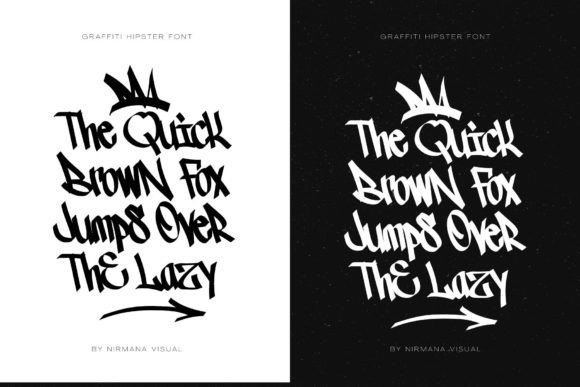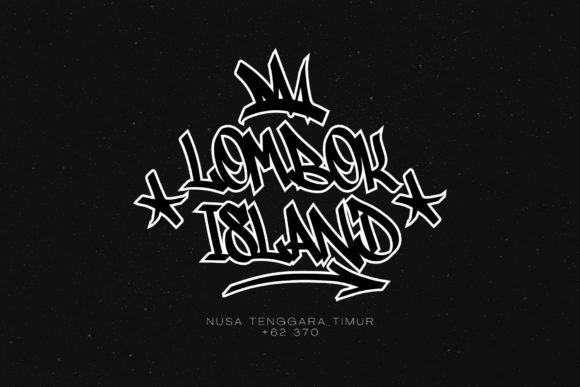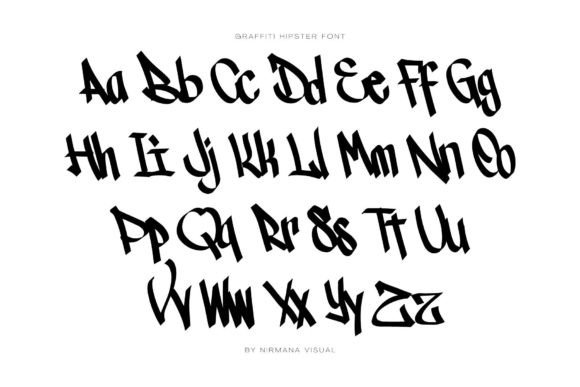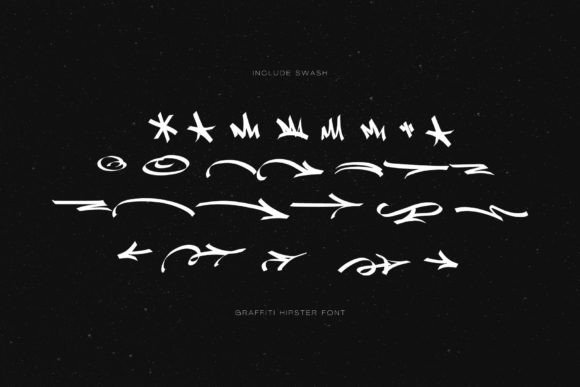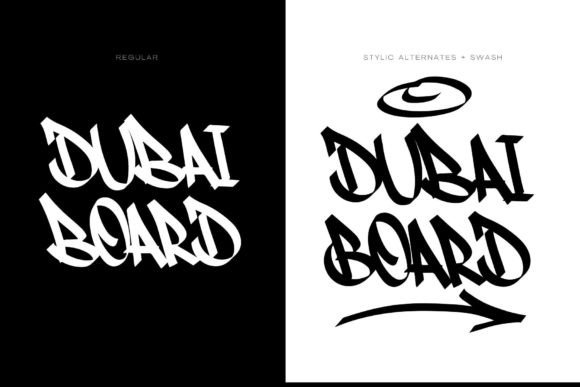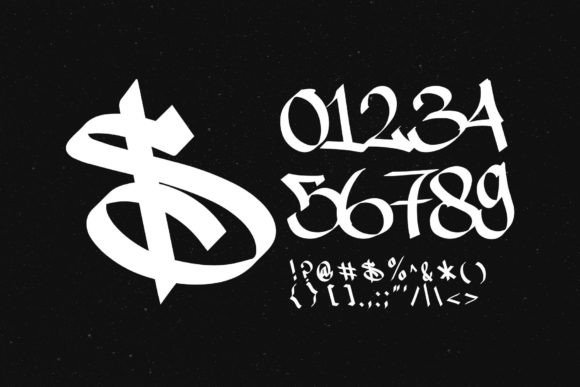
Introduction to Graffiti Hipster Font
Graffiti Hipster is the ultimate graffiti display font for urban design.
Bold, edgy, and full of attitude, this font brings the energy of the streets to any project With its handcrafted look and feel, Graffiti Hipster captures the raw and authentic spirit of graffiti art, making it perfect for logos, posters, and album covers.
Key Features of Graffiti Hipster Font